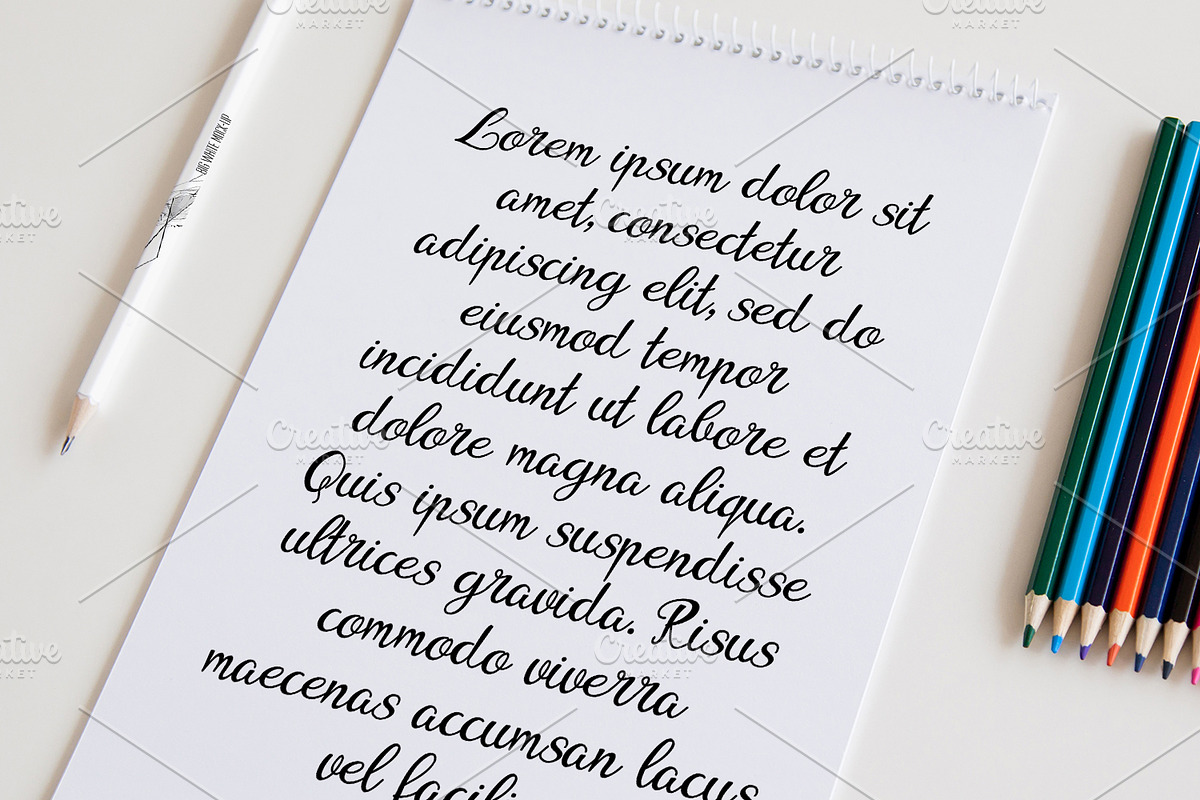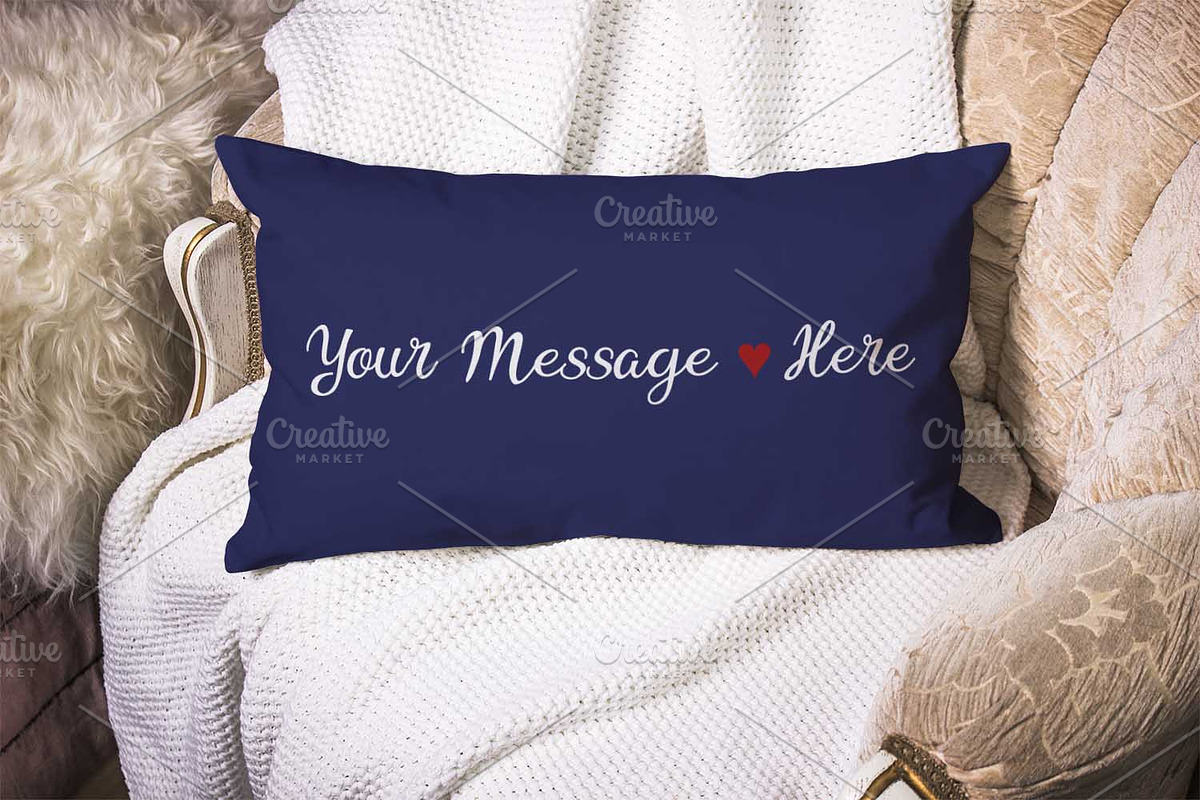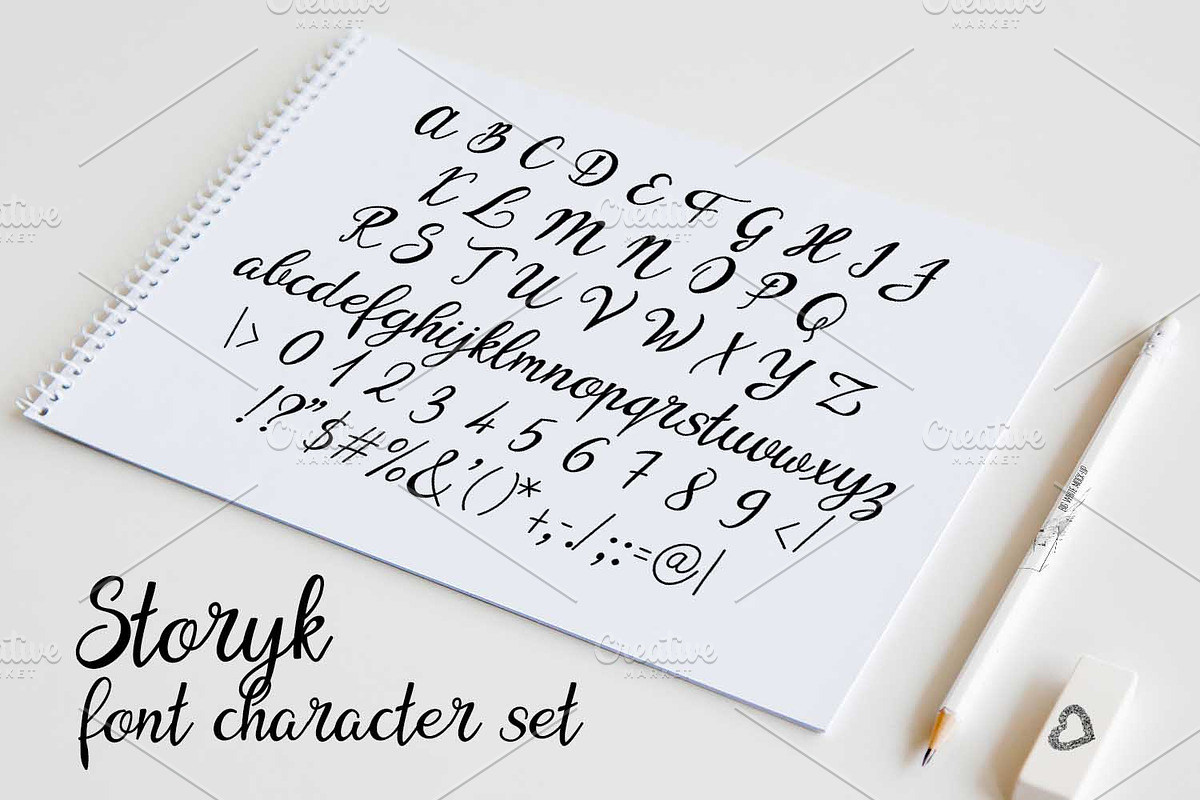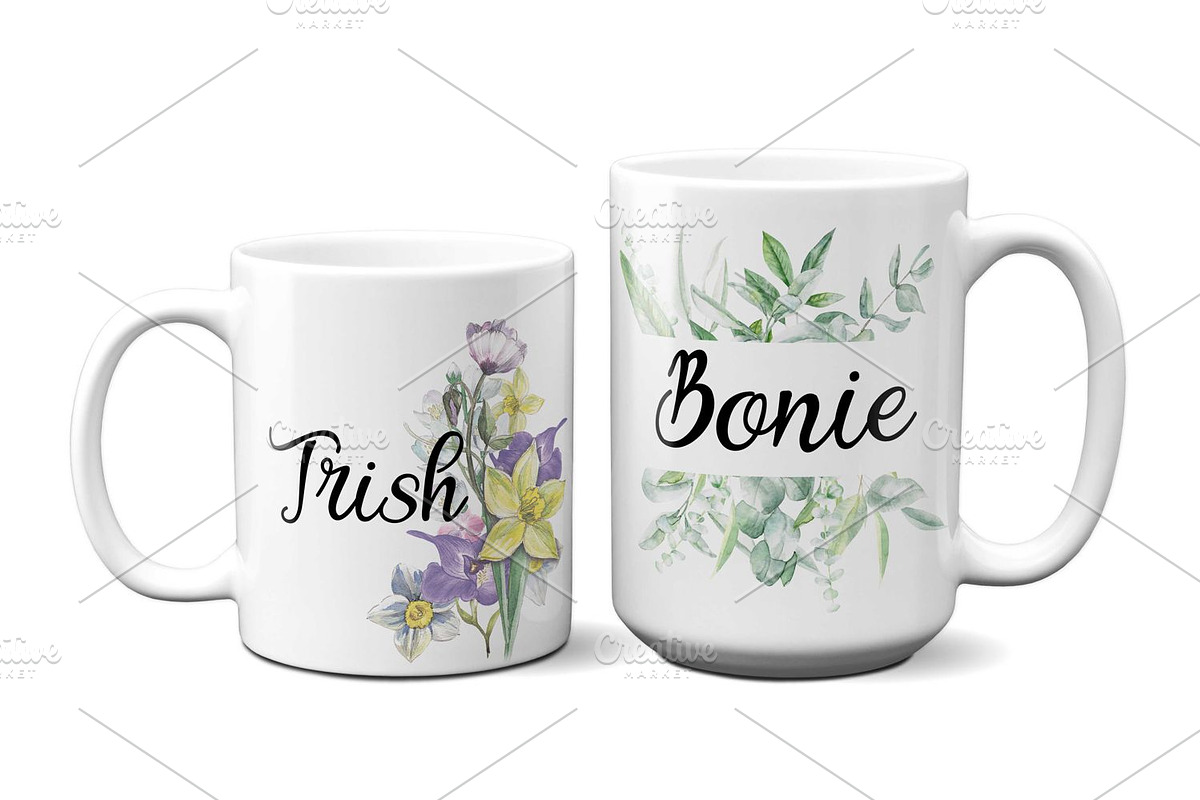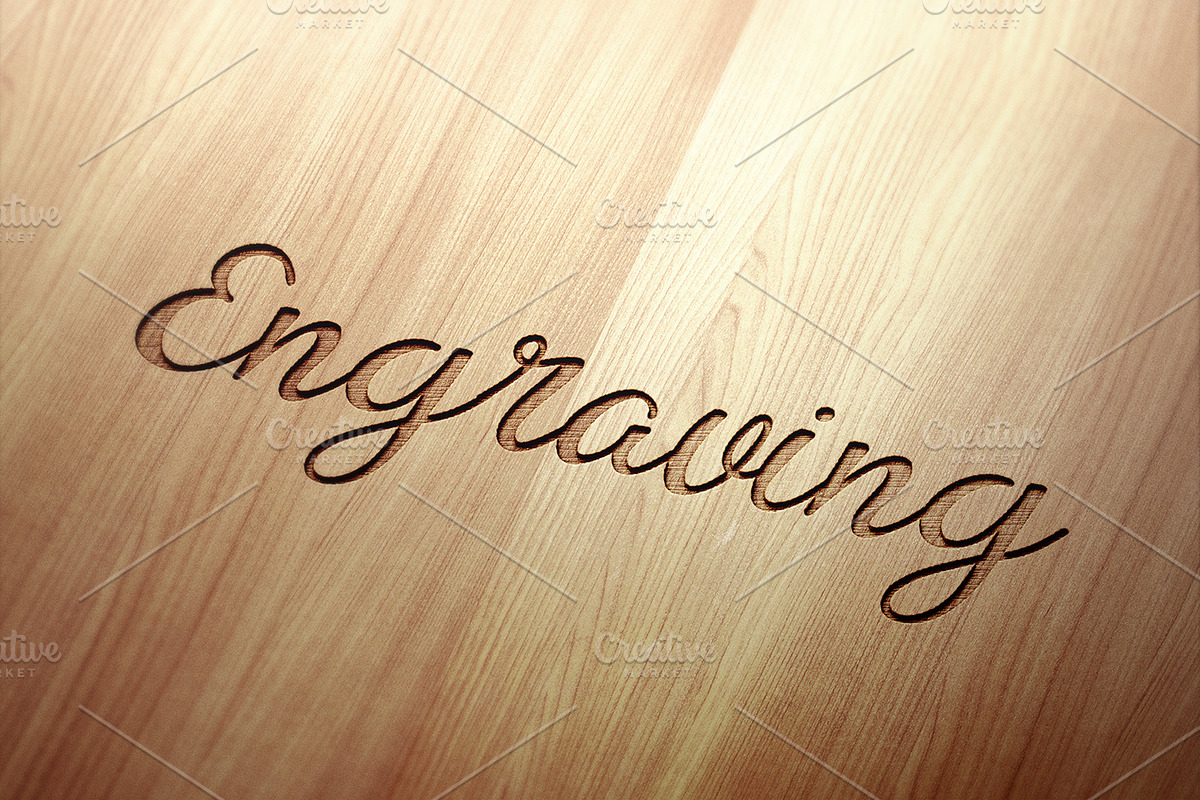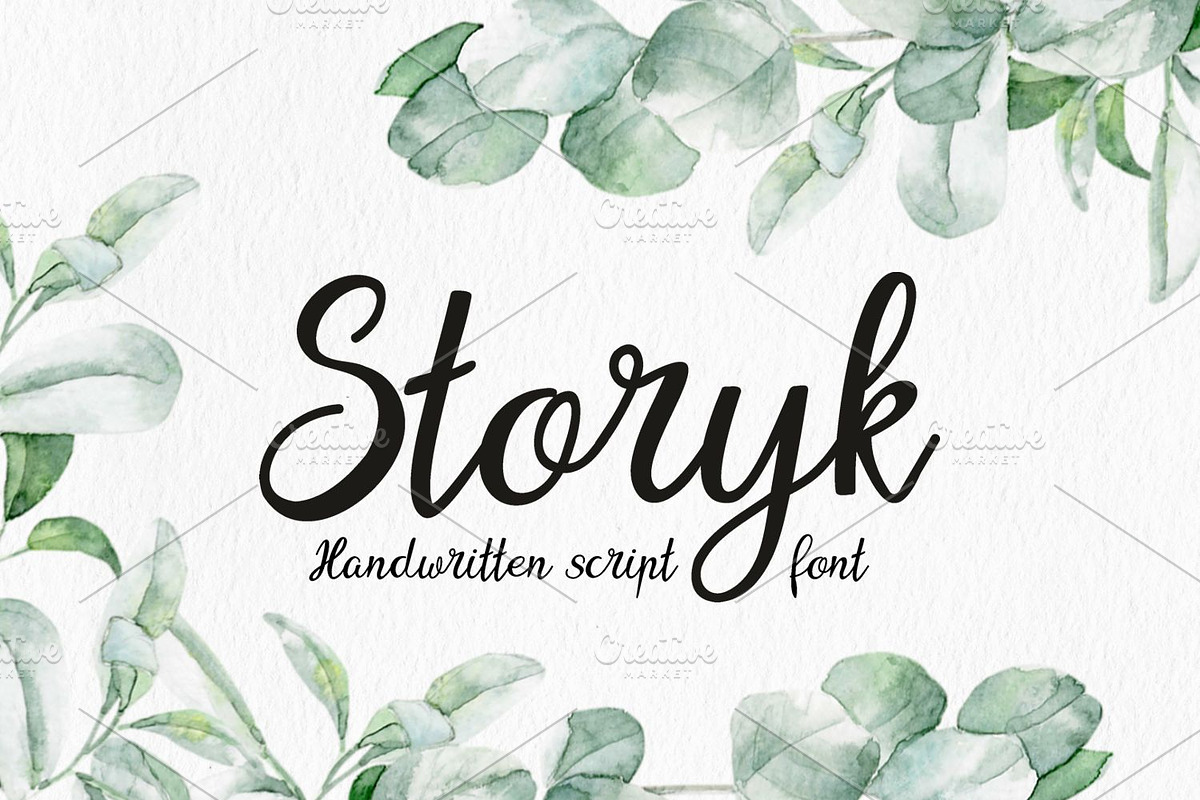
Storyk
Storyk is an incredibly distinct, delicate and timeless handwritten font. It looks stunning on wedding invitations, thank you cards, quotes, greeting cards, logos, business cards and every other design which needs a handwritten touch.
Storyk by Digital Typeface Studio fits naturally into Branding, posters, packaging, typography.